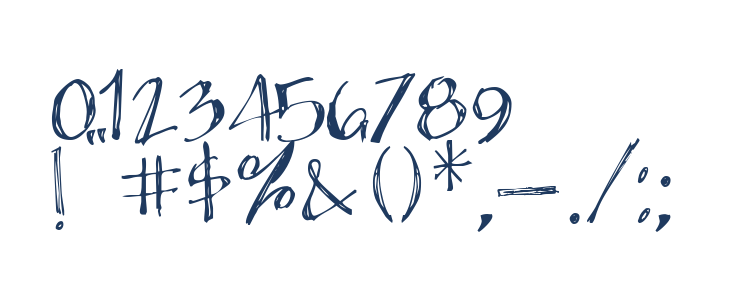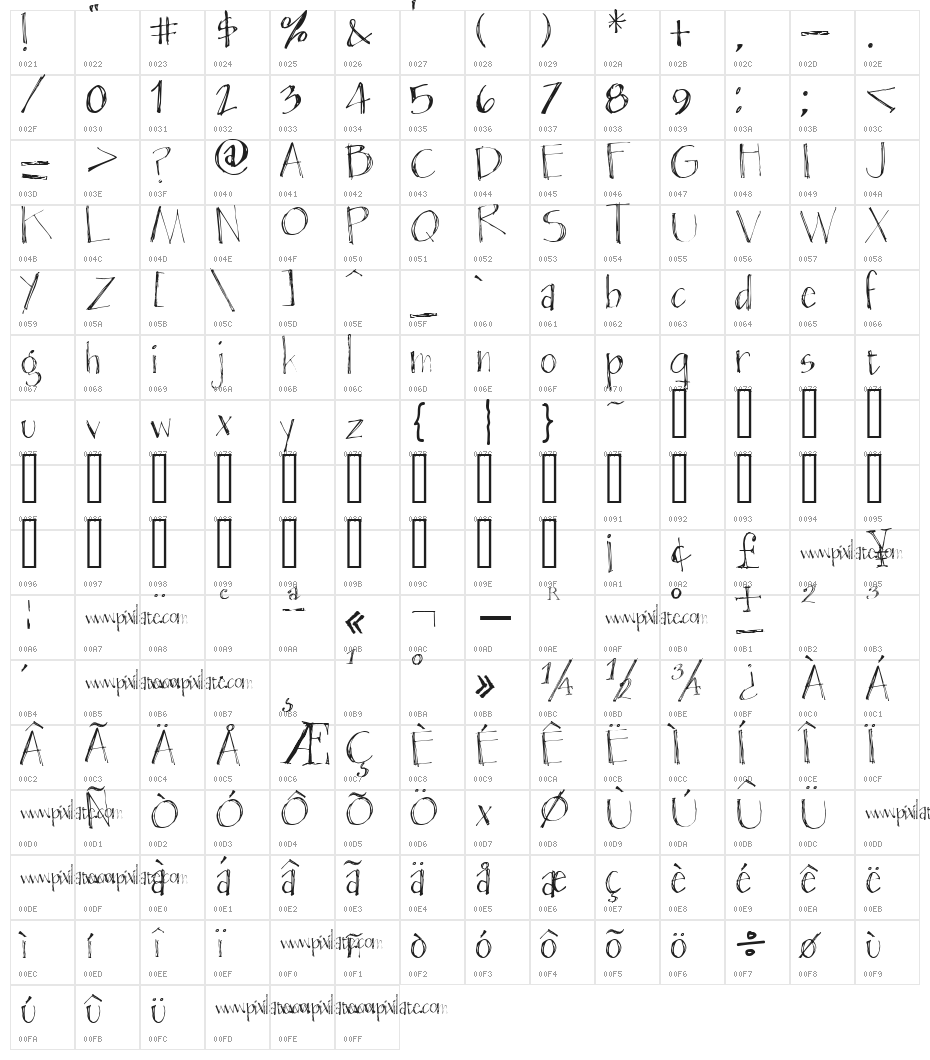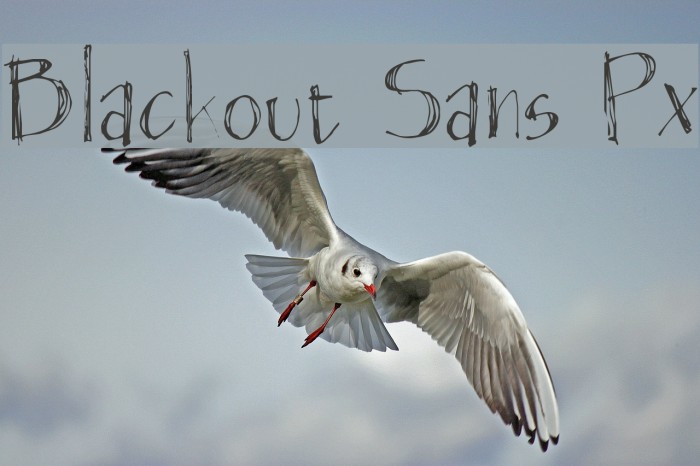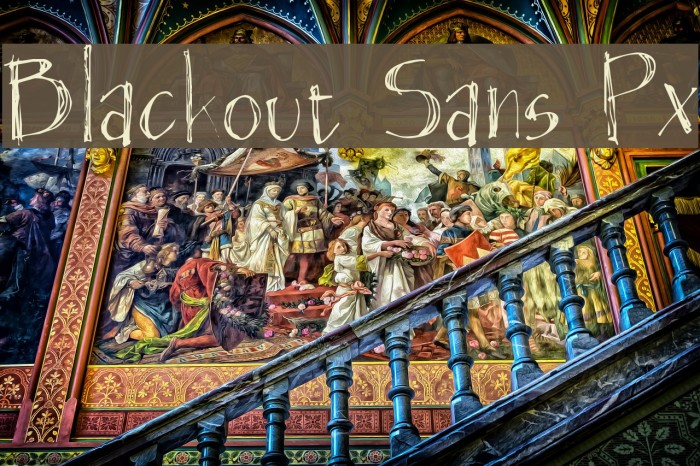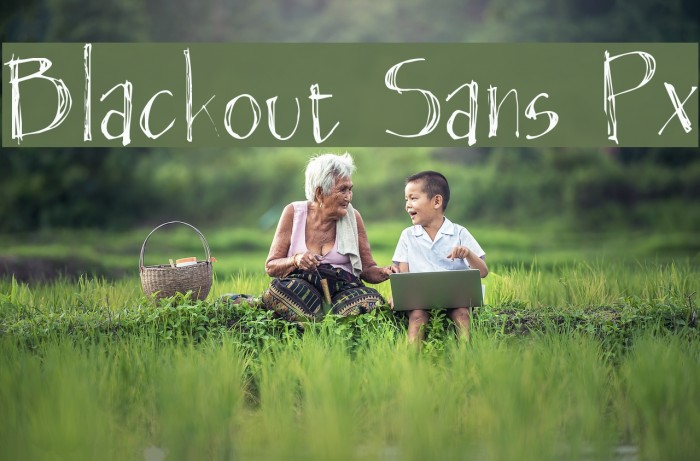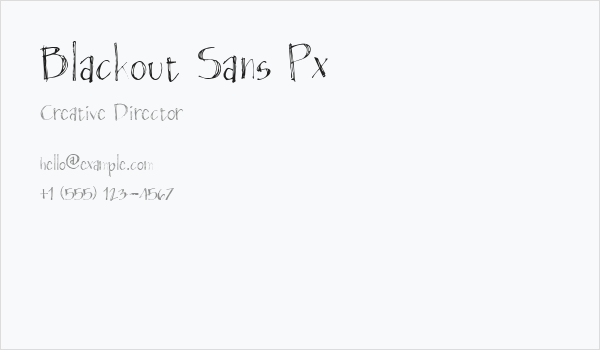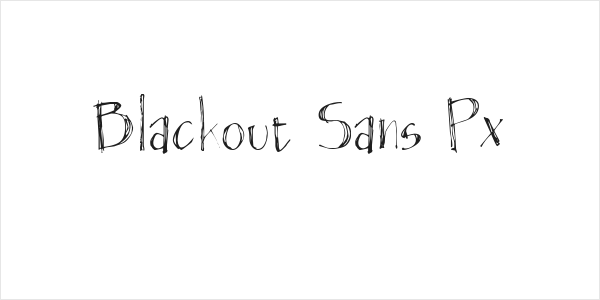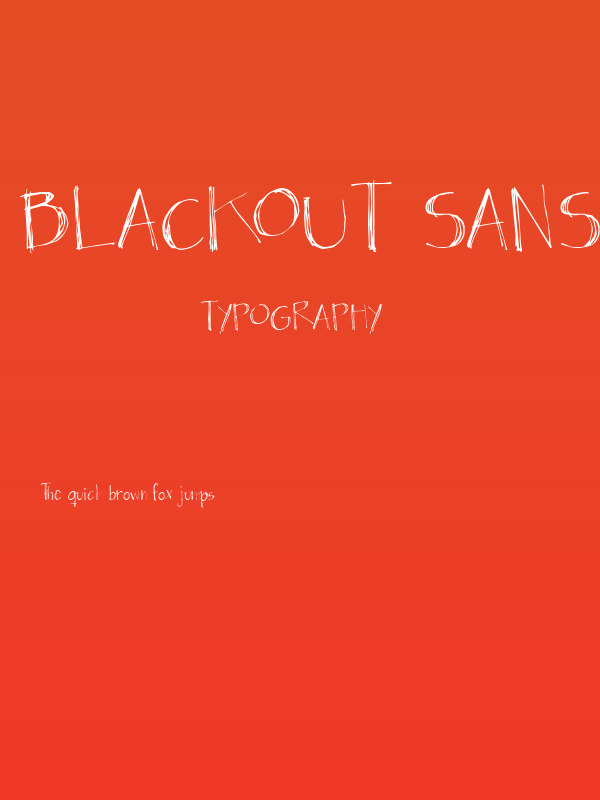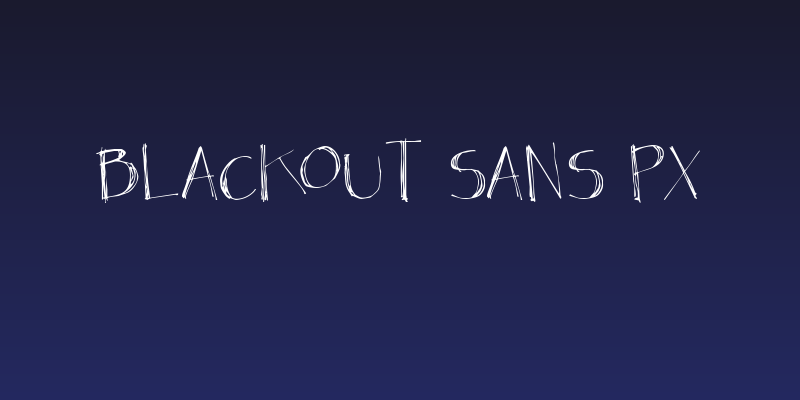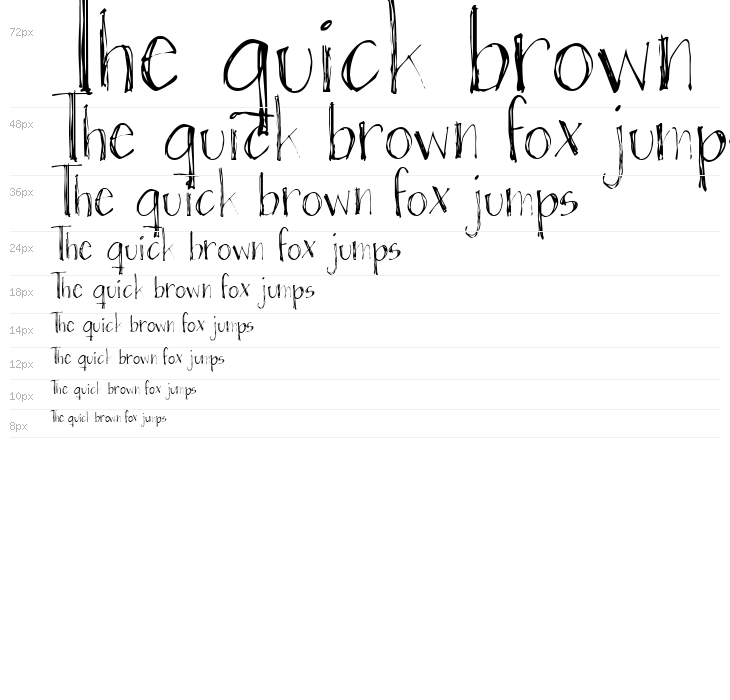
Blackout Sans Px Font
Blackout Sans Px Description
This font features a distinctive, hand-drawn style with a rough, sketch-like appearance. The characters are irregular and dynamic, giving an impression of spontaneity and creativity. The strokes vary in thickness, adding to the font's expressive nature. It captures a sense of raw energy and artistic flair, making it stand out with its unique, textured look. The uppercase and lowercase letters maintain a consistent style, while the numerals and special characters complement the overall design. This font is ideal for projects that require a bold, artistic statement.
| Proposed Projects | Ideal for artistic projects, posters, album covers, and creative branding. |